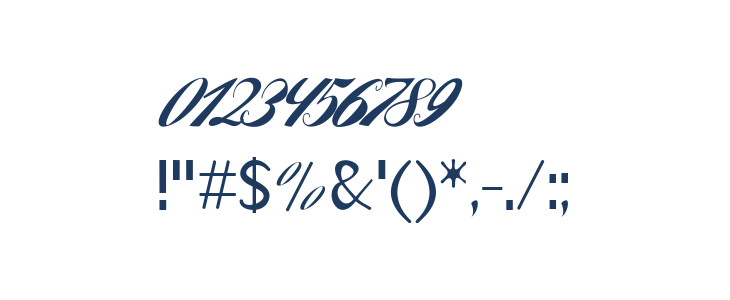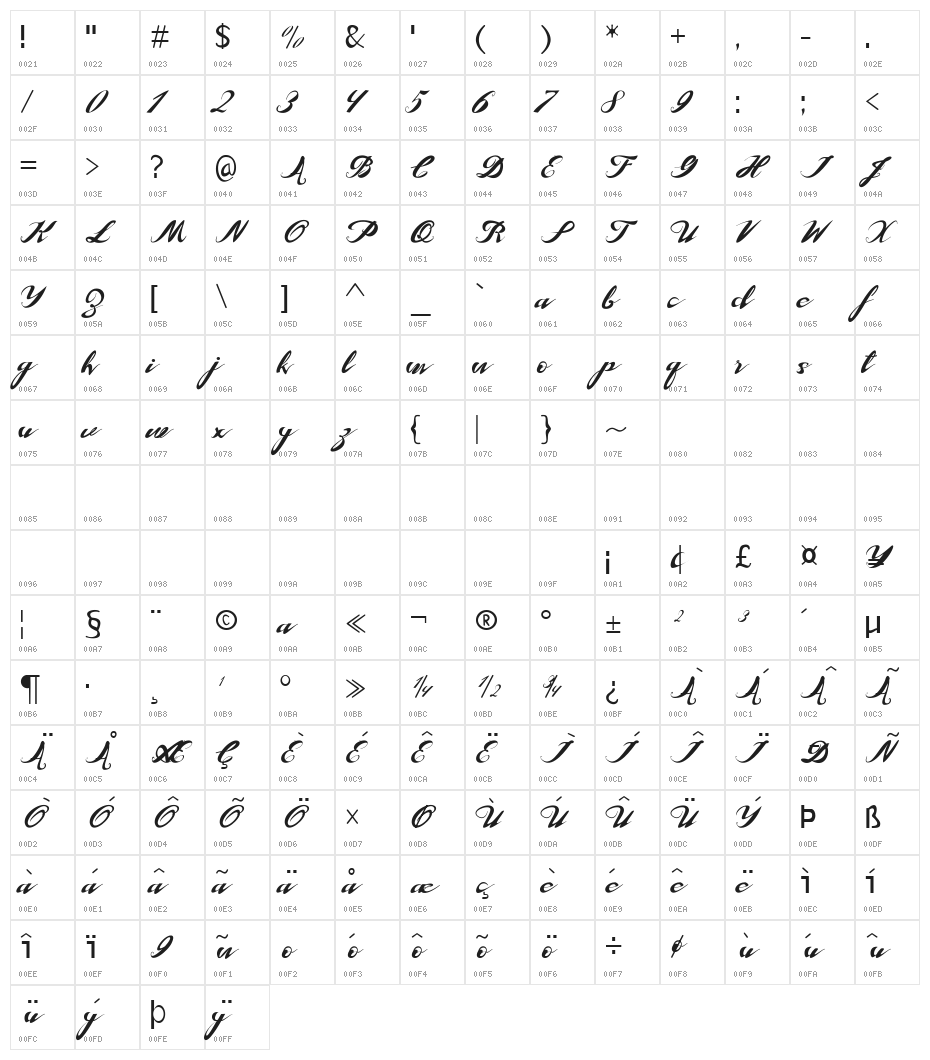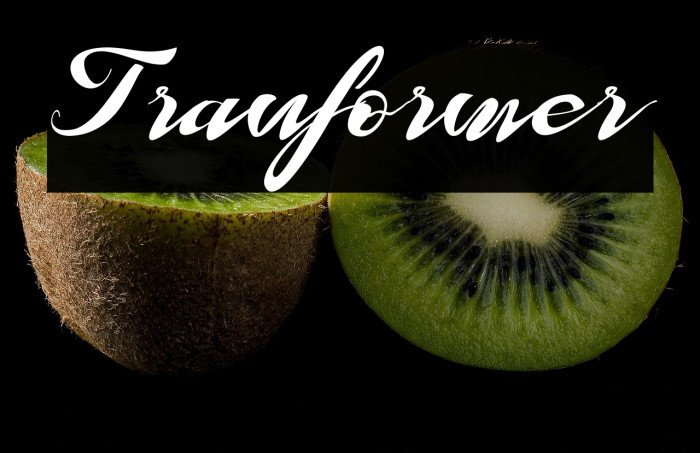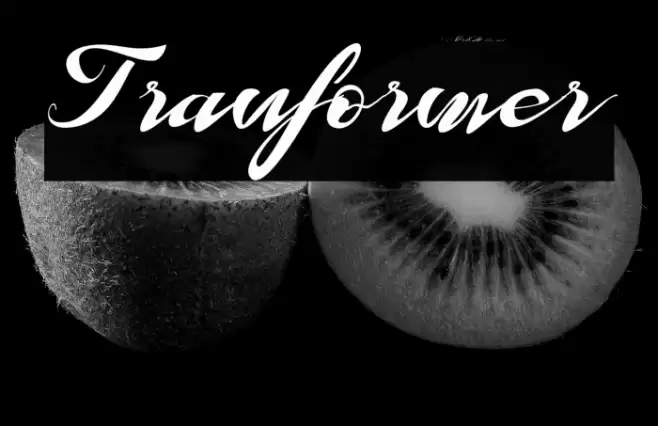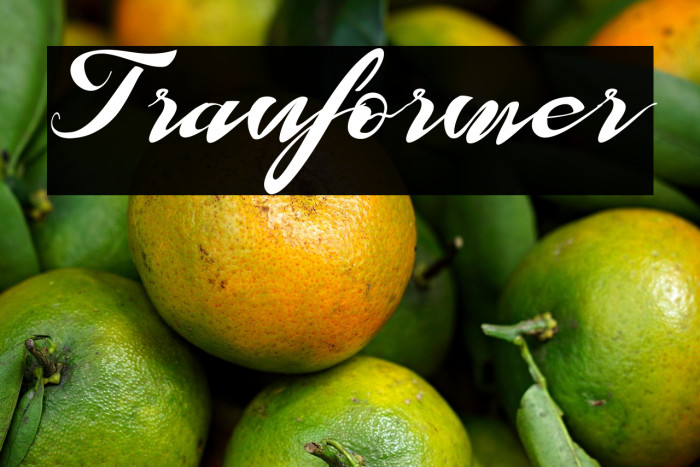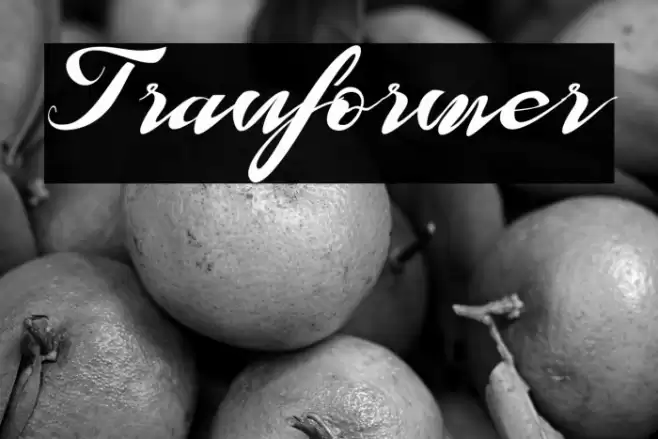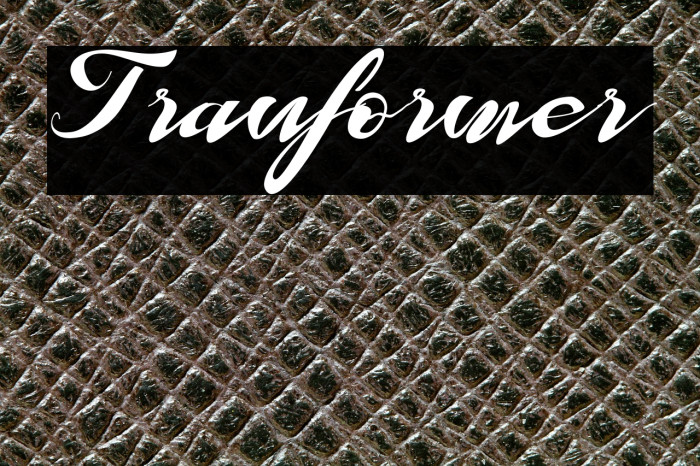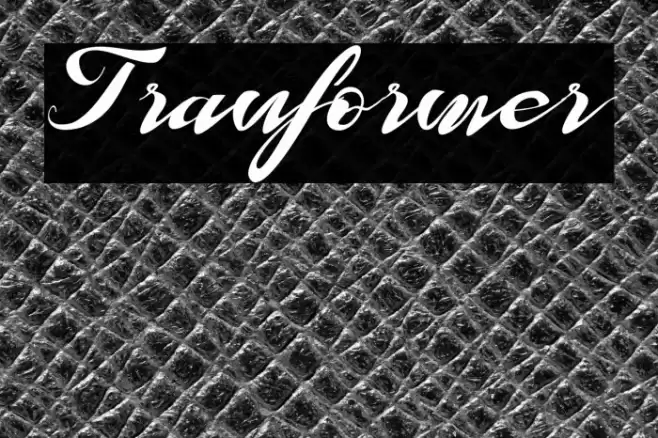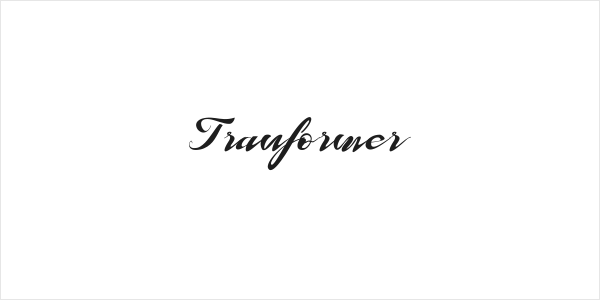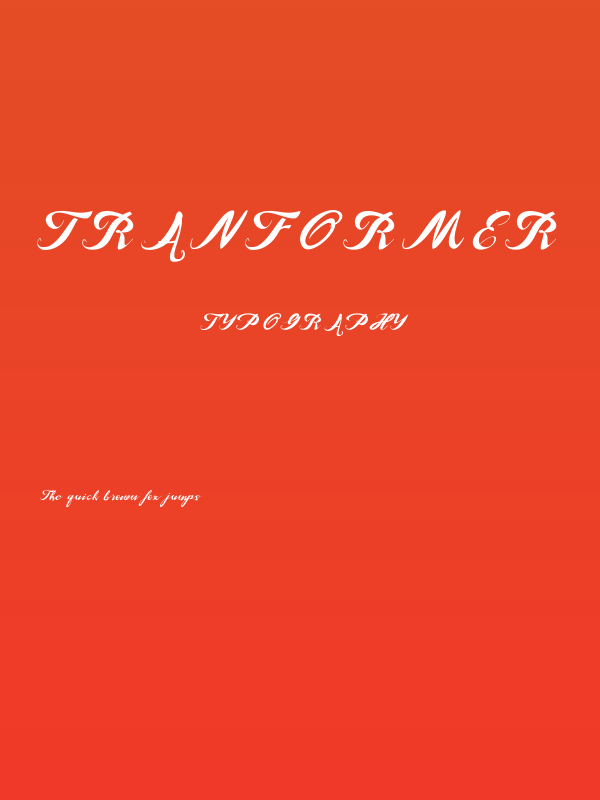
Tranformer Font
Tranformer Description
This font exudes elegance and sophistication with its flowing, cursive style. The letters are intricately designed with smooth curves and graceful loops, giving it a handwritten appearance. The uppercase letters are particularly ornate, featuring elaborate swashes and flourishes that add a touch of drama and flair. The lowercase letters maintain a consistent style, with a slightly more restrained design that complements the uppercase characters beautifully. The numerals and special characters are equally well-crafted, ensuring a cohesive look across all text elements. This font is perfect for projects that require a touch of elegance and refinement, such as wedding invitations, luxury branding, or high-end product packaging.
| Proposed Projects | Ideal for wedding invitations, luxury branding, high-end product packaging, and elegant stationery. |